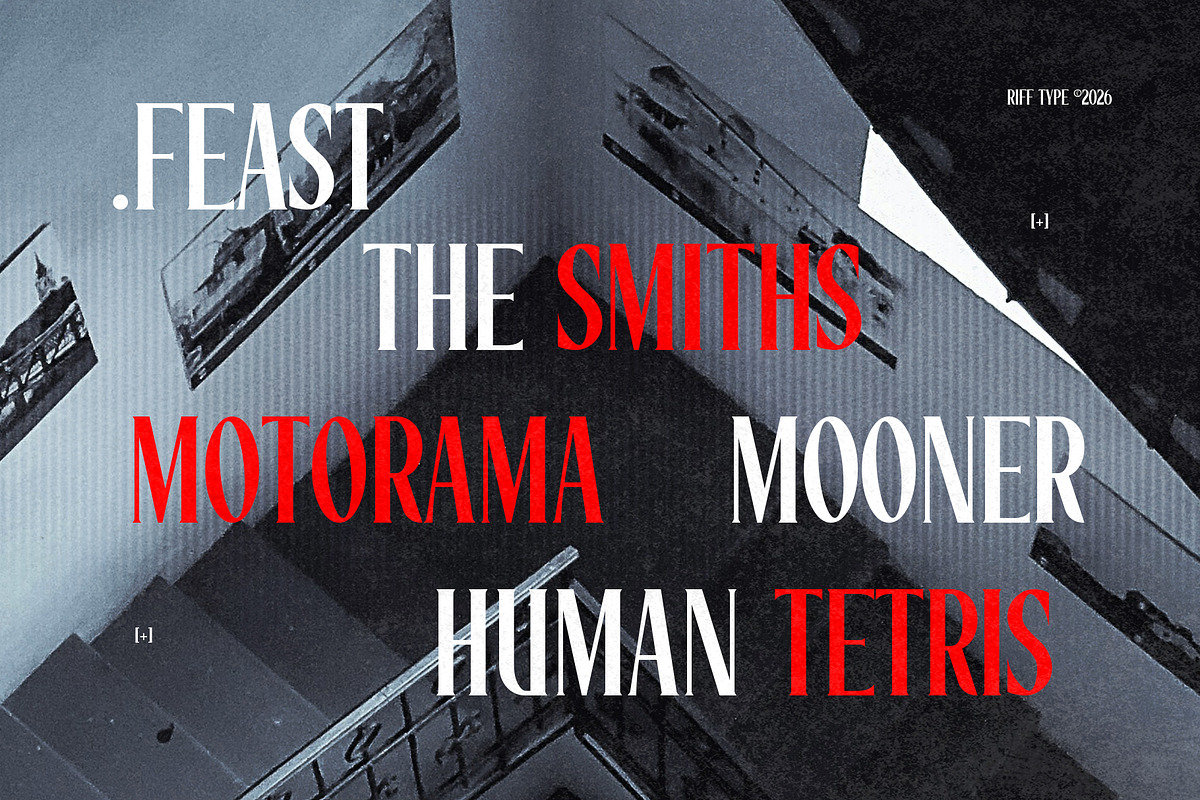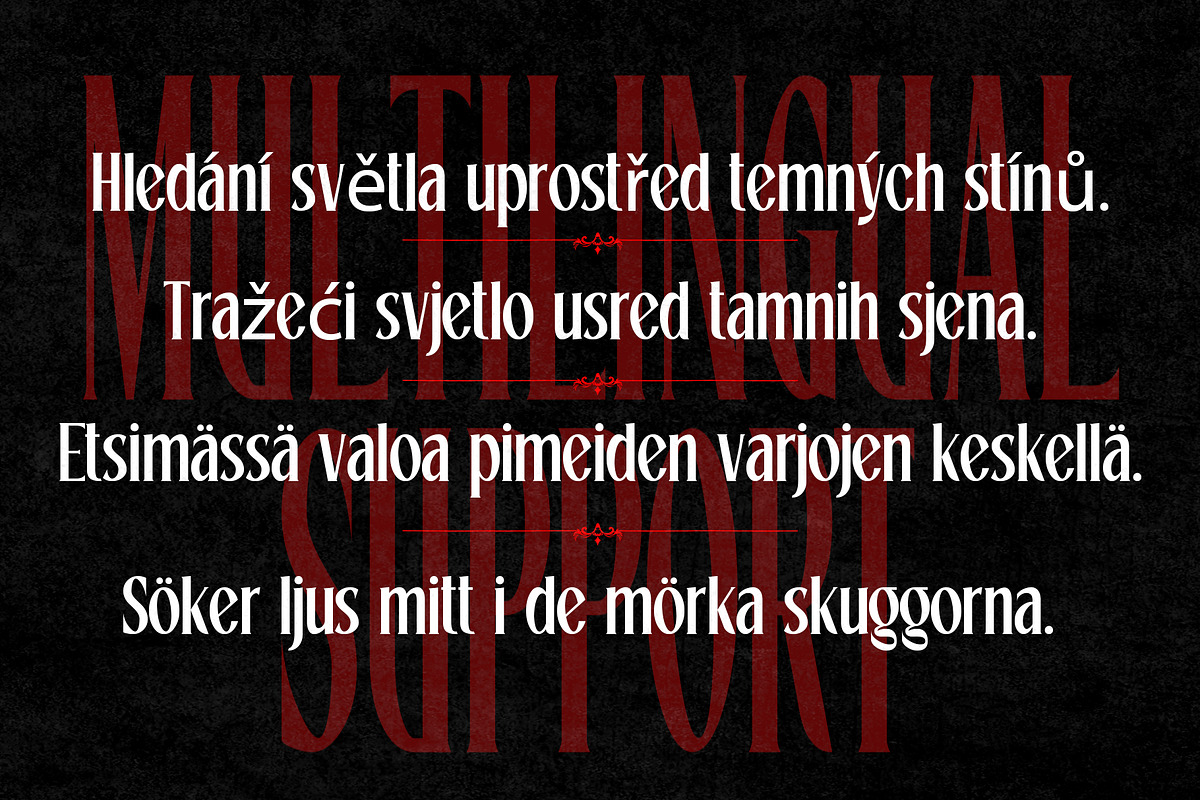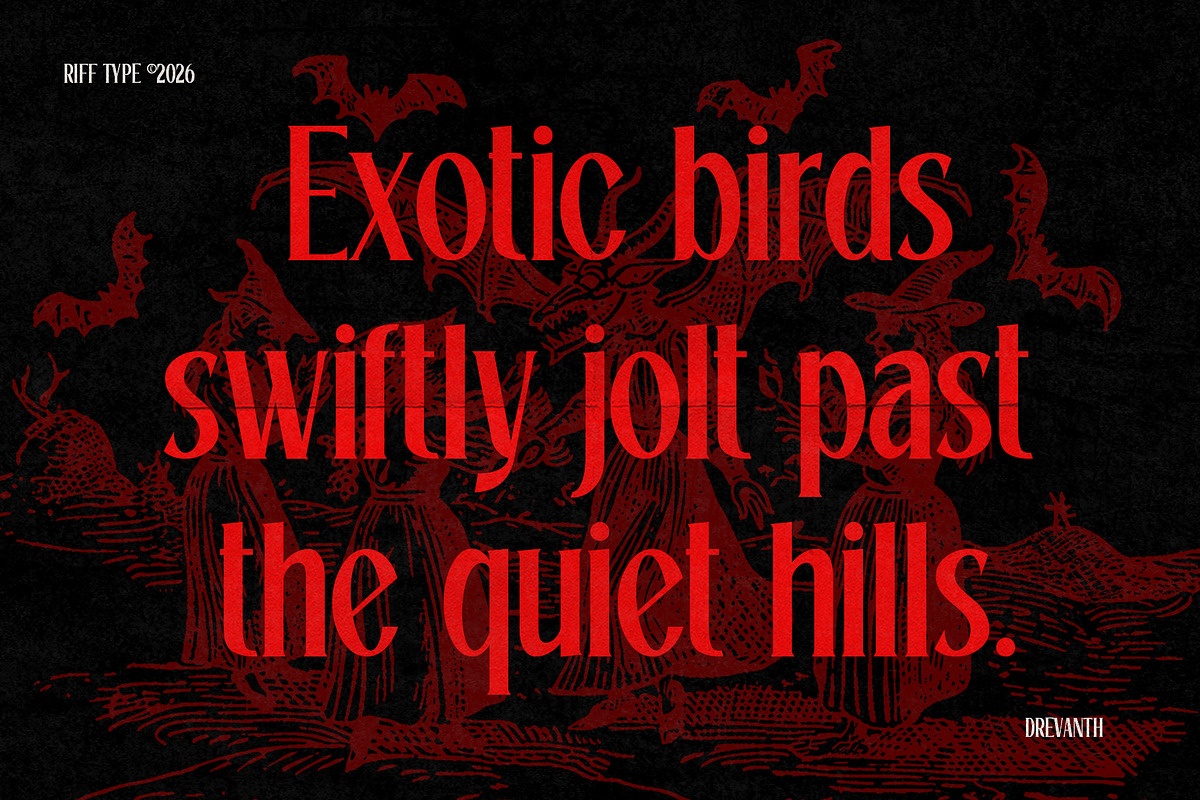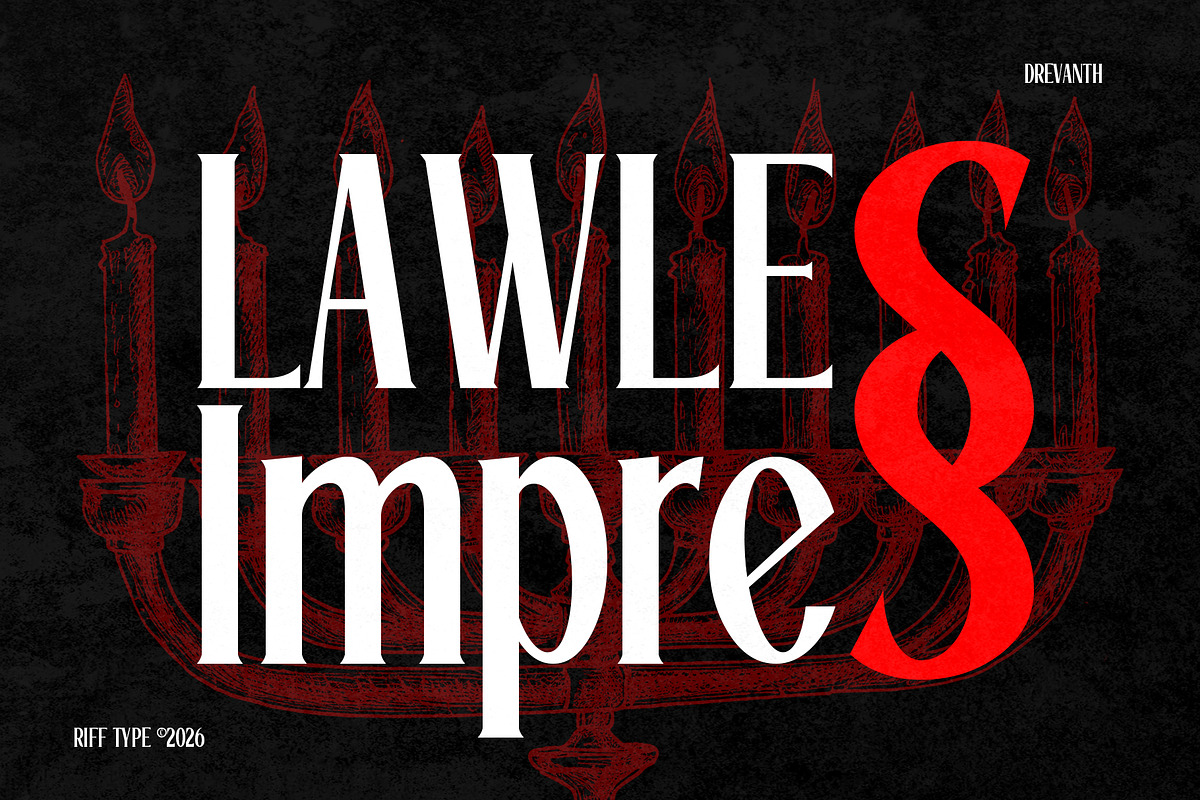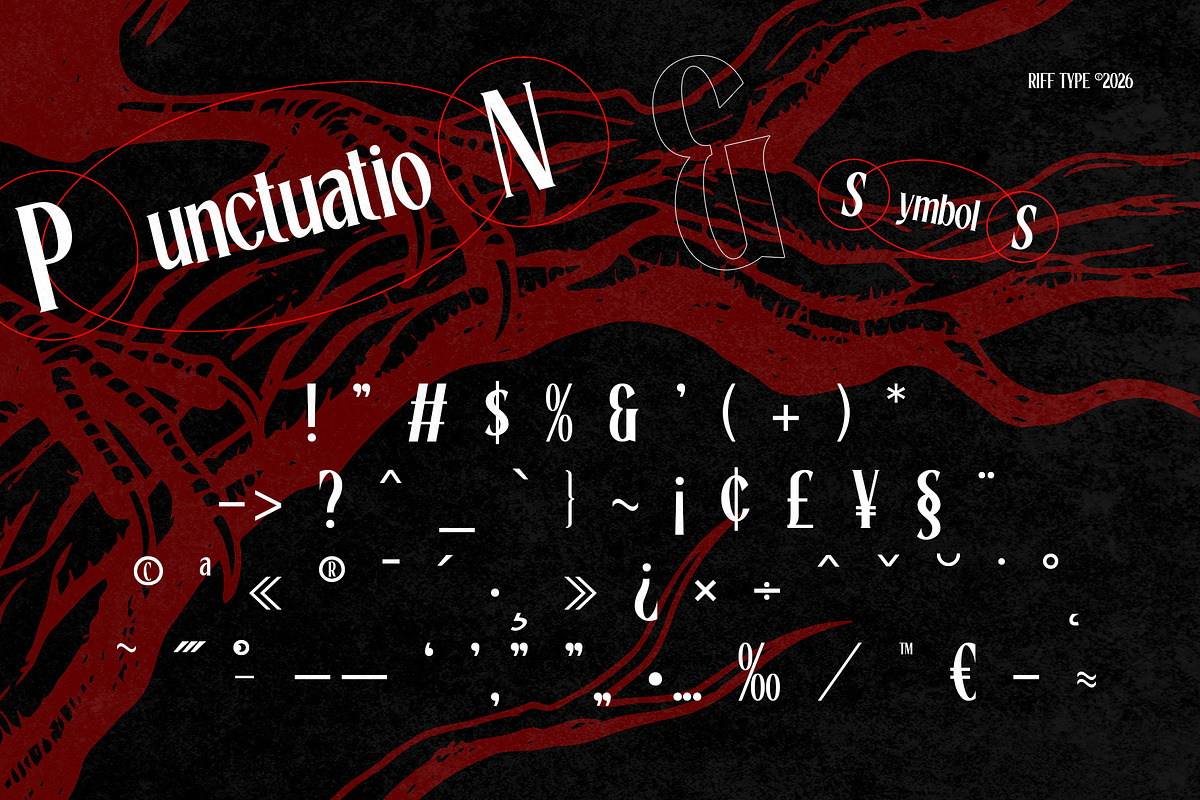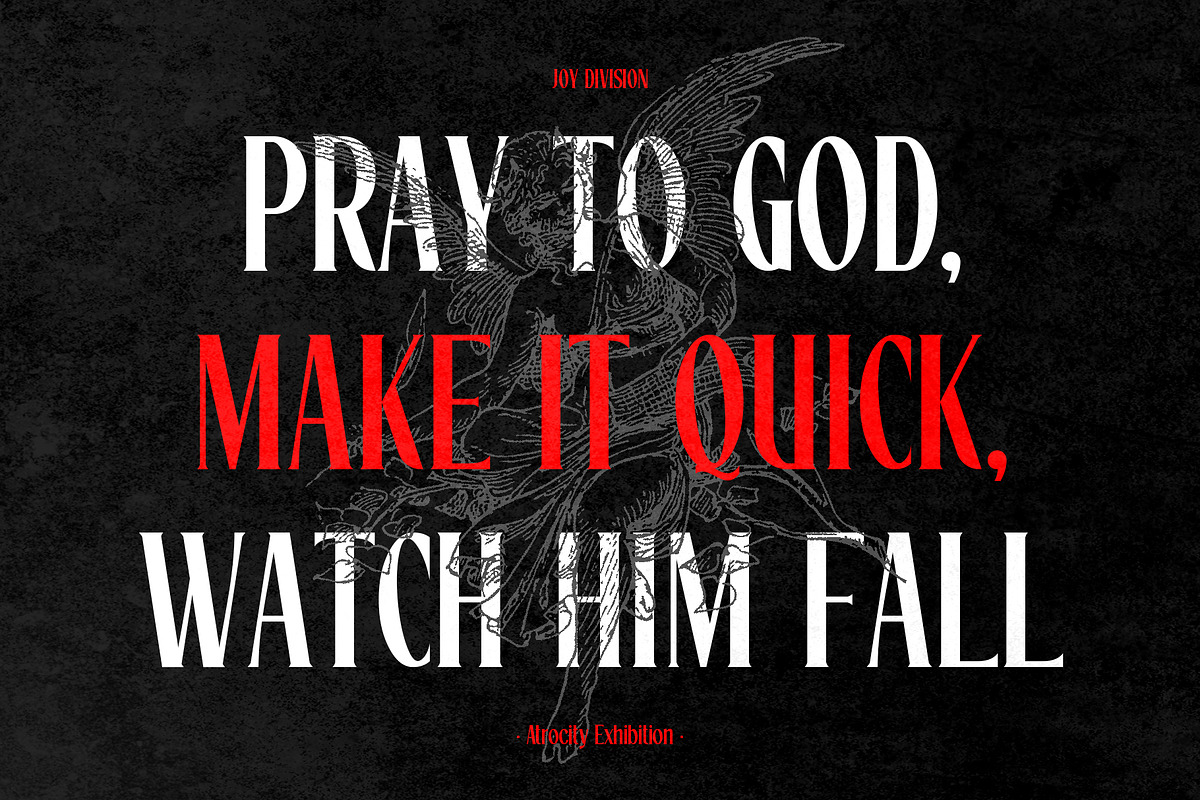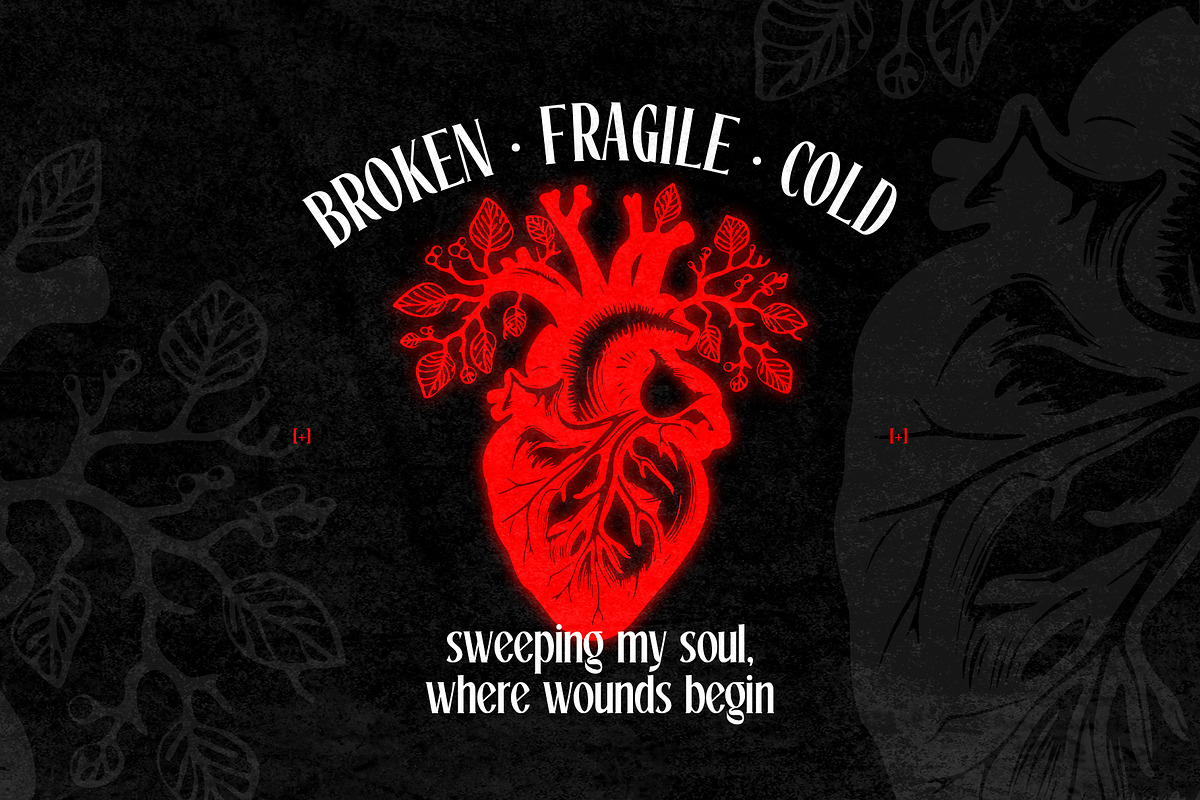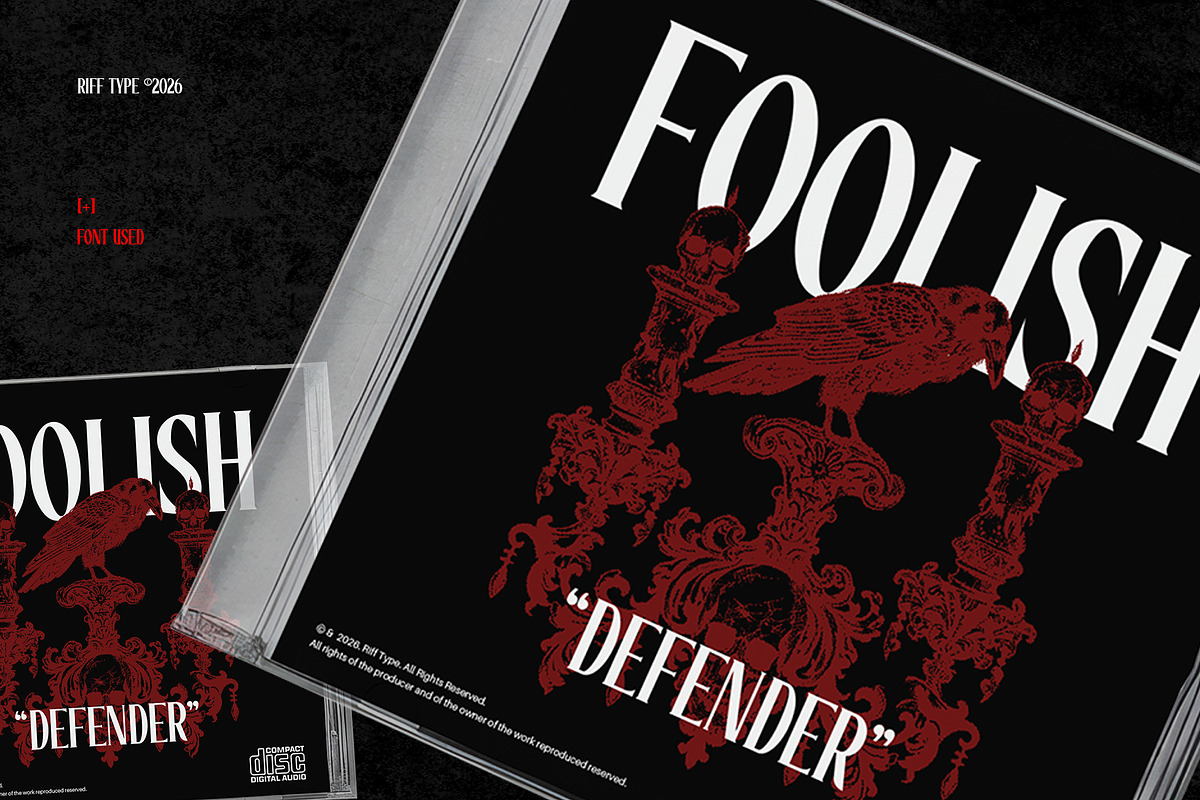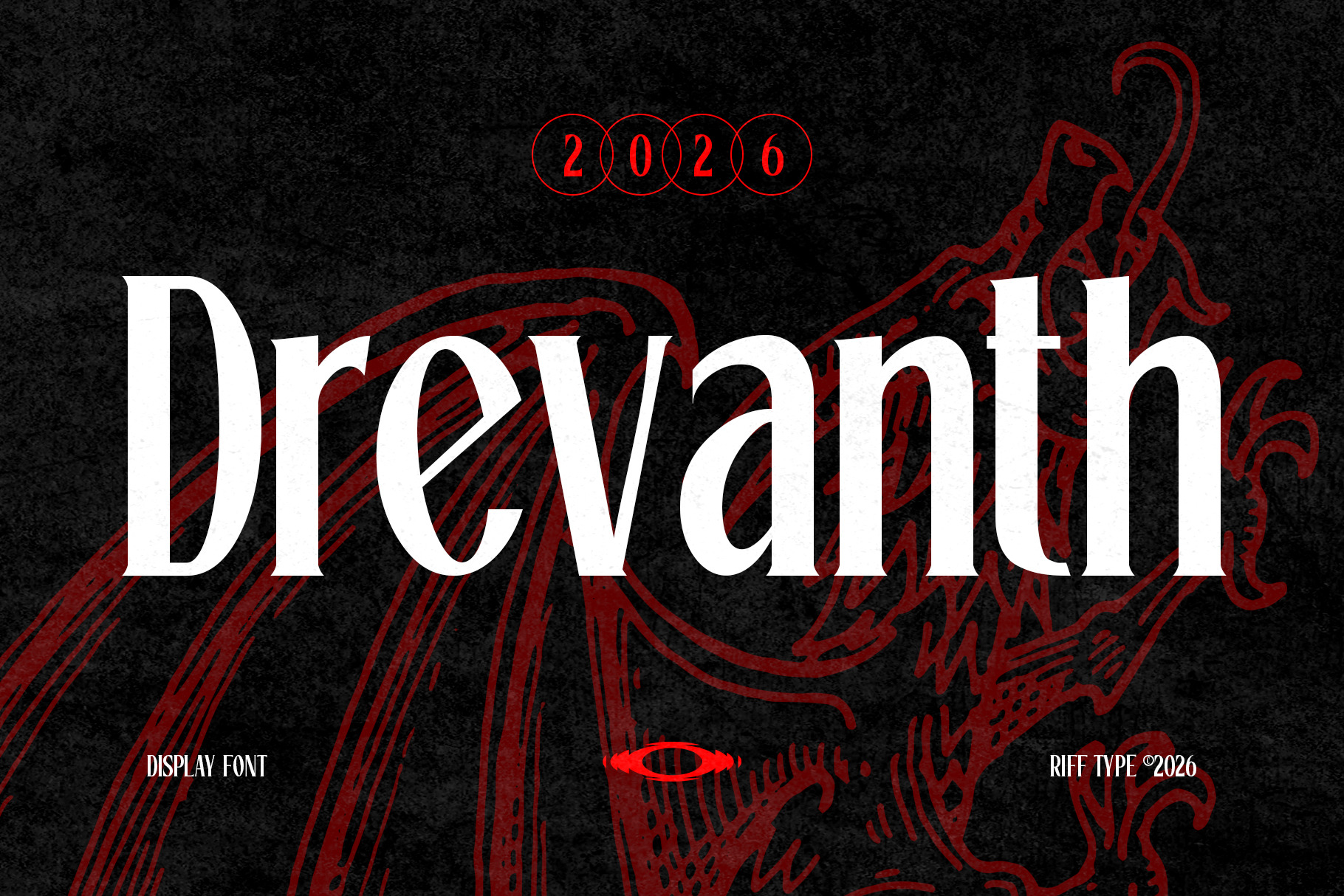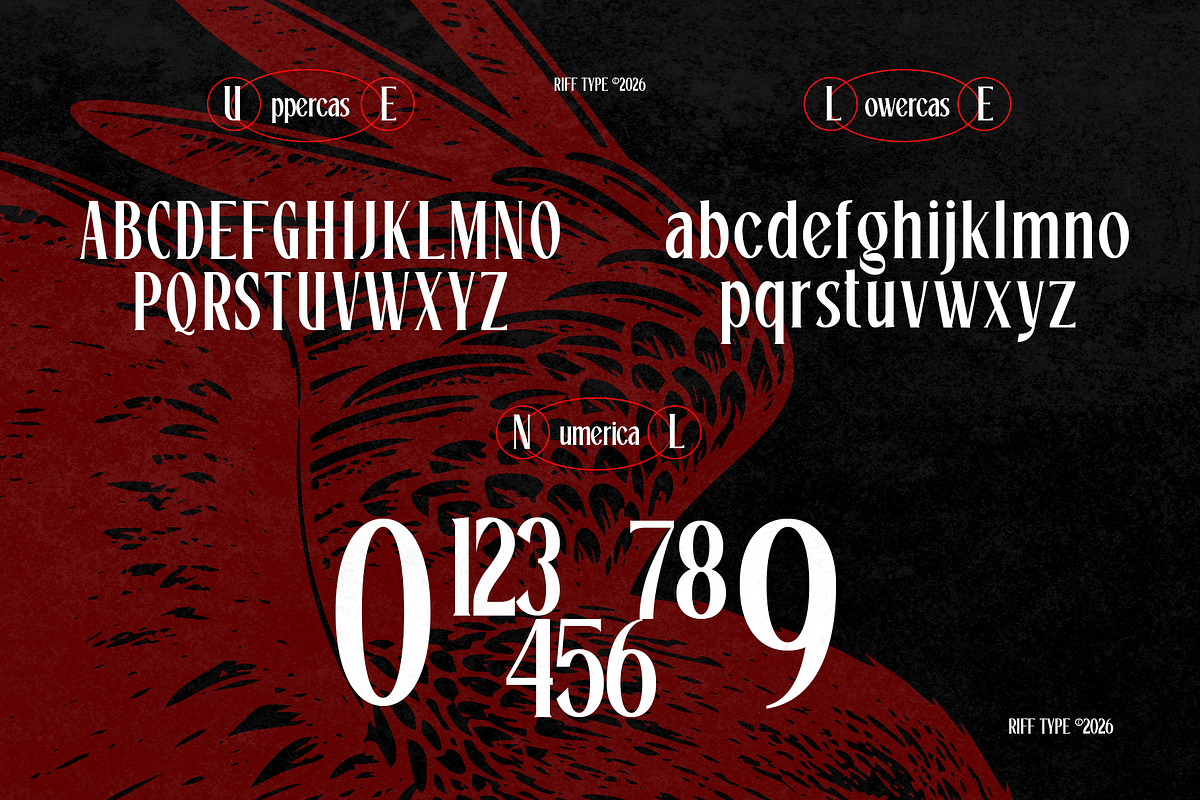
Drevanth - Darkwave Gothic Font
Drevanth - a bold, gothic-inspired display font designed for dark and heavy music projects.
Its sharp, dramatic letterforms and condensed structure give a commanding presence, perfect for metal, doom, black, and gothic rock band logos, album covers, and posters.